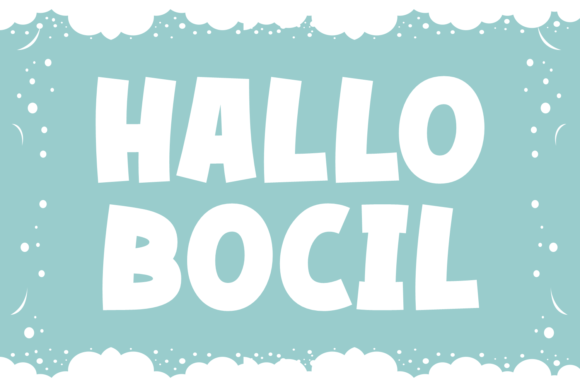
Unleash Your Creativity with Hallo Bocil Font: The Ultimate Playful Typeface
Are you tired of using the same old fonts in your designs? Look no further! Introducing HALLO BOCIL, a playful and energetic all-caps bold font that’s perfect for adding a touch of fun to your projects. With its bold strokes and whimsical flair, HALLO BOCIL brings a joyful and youthful vibe to any design, making it a must-have for designers and crafters alike.
The Perfect Font for Creative Projects
HALLO BOCIL is more than just a font – it’s an expression of creativity and enthusiasm. Its bold and playful design makes it perfect for a wide range of projects, from posters and flyers to social media graphics and crafts. Whether you’re a professional designer or a DIY enthusiast, HALLO BOCIL is sure to add a cheerful twist to your text and make your project stand out.
Key Features of HALLO BOCIL Font
- Playful and Energetic Design: HALLO BOCIL’s unique design is sure to capture the attention of your audience and add a touch of fun to your project.
- All-Caps Bold Font: The font’s bold strokes and all-caps design make it perfect for headlines, titles, and emphasis text.
- Whimsical Flair: HALLO BOCIL’s whimsical design elements add a touch of personality and charm to your text.
- Versatile: HALLO BOCIL can be used for a wide range of projects, from digital designs to print materials.
Why Choose HALLO BOCIL Font?
With so many fonts available, why choose HALLO BOCIL? Here are just a few reasons:
- Unique Design: HALLO BOCIL’s playful design is sure to make your project stand out from the crowd.
- Easy to Read: Despite its bold and playful design, HALLO BOCIL is easy to read, even at smaller sizes.
- Customizable: HALLO BOCIL can be customized to fit your project’s style and tone.
How to Use HALLO BOCIL Font in Your Designs
Using HALLO BOCIL in your designs is easy! Here are a few tips:
- Pair with Other Fonts: Pair HALLO BOCIL with other fonts to create a unique and visually appealing design.
- Use for Headlines and Titles: Use HALLO BOCIL for headlines and titles to add a touch of fun and personality to your text.
- Experiment with Colors: Experiment with different colors to find the perfect match for your project.
In conclusion, HALLO BOCIL is a playful and energetic all-caps bold font that’s perfect for adding a touch of fun to your designs. With its bold strokes and whimsical flair, it brings a joyful and youthful vibe to any project. Whether you’re a designer or crafter, HALLO BOCIL is sure to unleash your creativity and add a cheerful twist to your text! 🎉💥